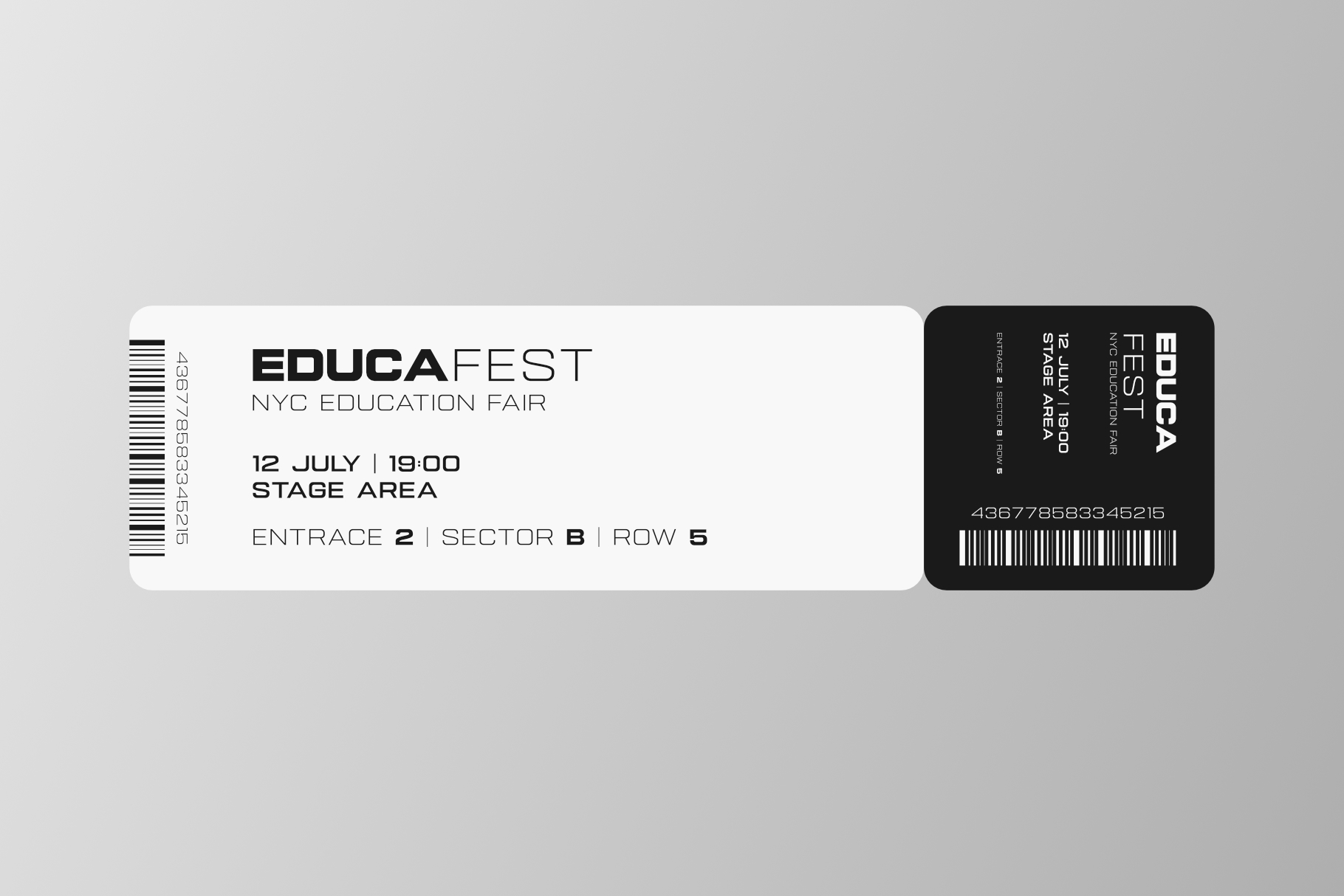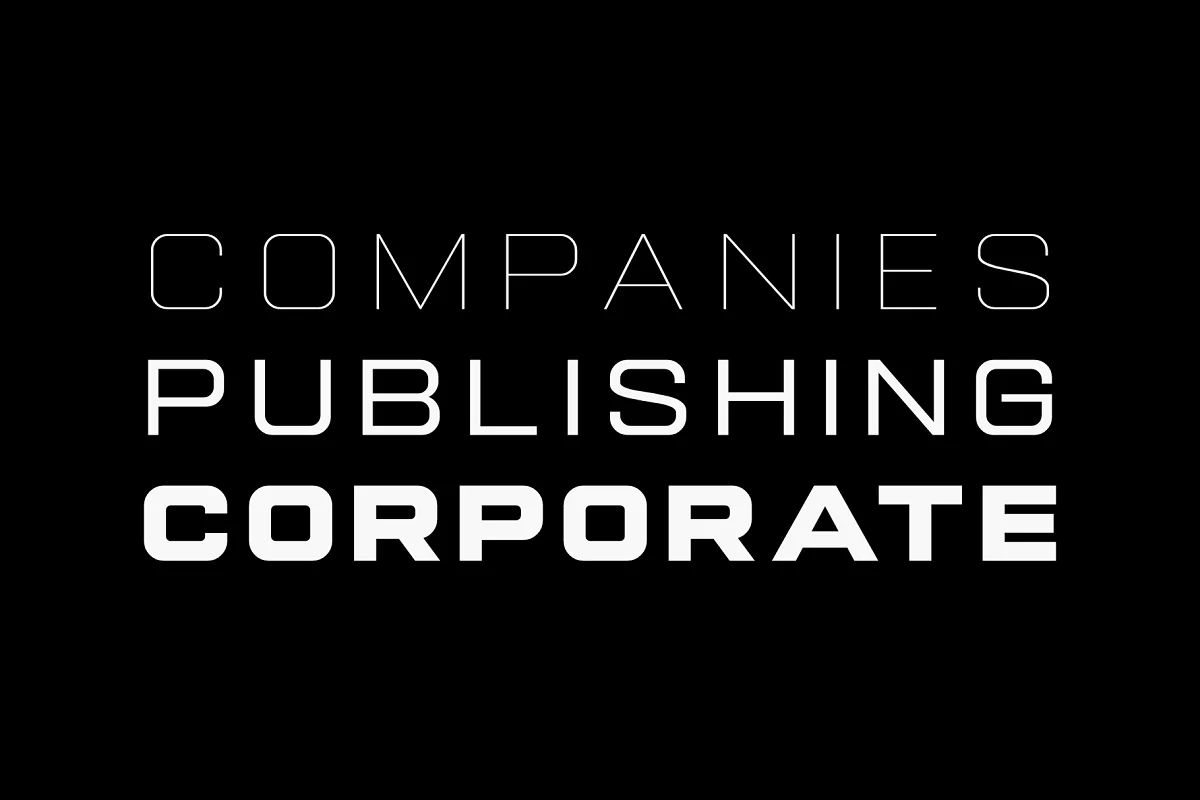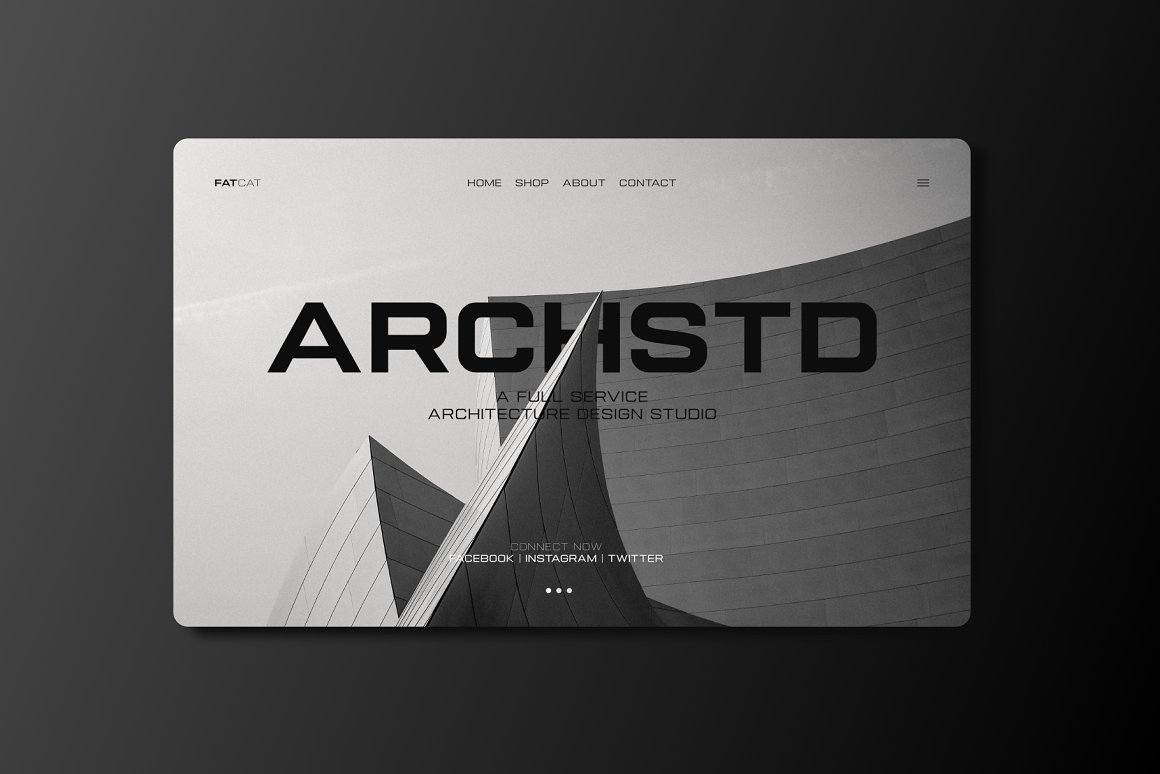
Gemsbuck 01 – A Bold, Modern Classic logo font with Industrial Style
Gemsbuck 01 is a sharp, all-caps, sans serif display font family that channels the timeless strength of styles like Bank Gothic — but with a modern refresh. Built for designers who want their type to feel strong, clean, and confidently futuristic, Gemsbuck 01 is perfect for bold headings, sharp announcements, and sleek corporate visuals.
It’s super legible, even in tight spaces, with a slightly expanded structure and a strong geometric backbone. Think technical, industrial, and a little bit decorative, all rolled into one elegant design. Whether you’re working on a poster, magazine, newspaper, or book layout, Gemsbuck 01 keeps things bold, readable, and beautifully on-grid.
From screen to print, it delivers a consistent, pro look that suits everything from edgy branding to high-end editorial. And with OpenType features built in, you’ll have all the typographic control you need for polished, professional results.
If you’re after a clean, modern, and slightly retro typeface that stands its ground in any design setting, Gemsbuck 01 is ready to deliver.